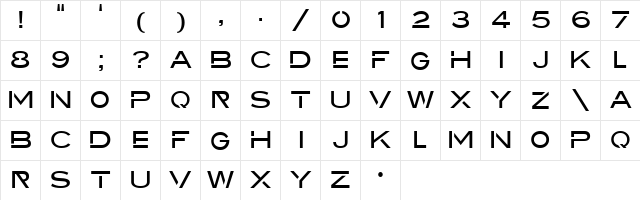
Drupadi Regular
| Designer | Kadek Adi Mahardika |
Design Context for Drupadi Typeface
Drupadi is a composed and adaptable typeface that performs quietly and consistently across a wide range of design contexts.